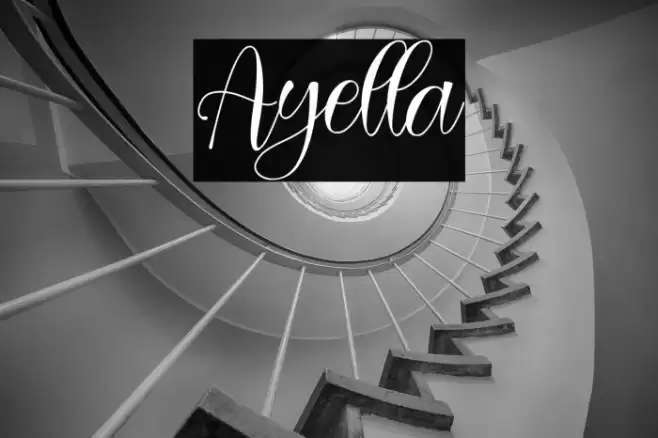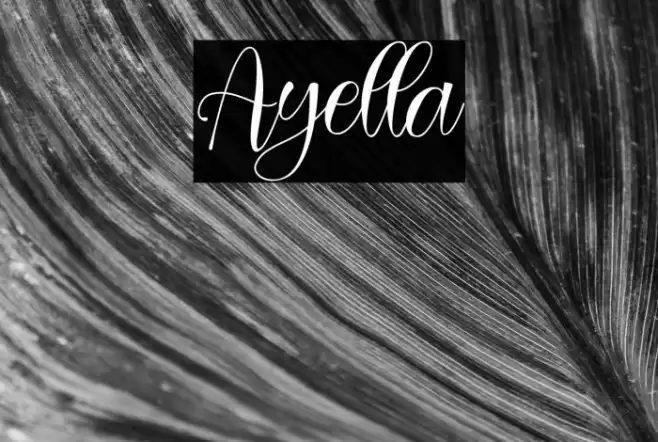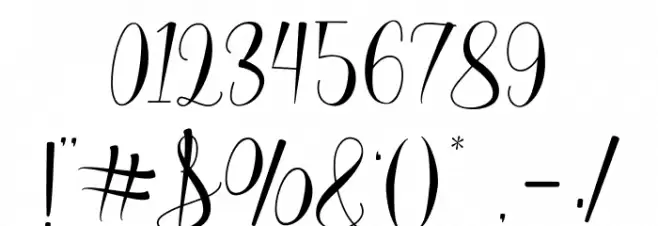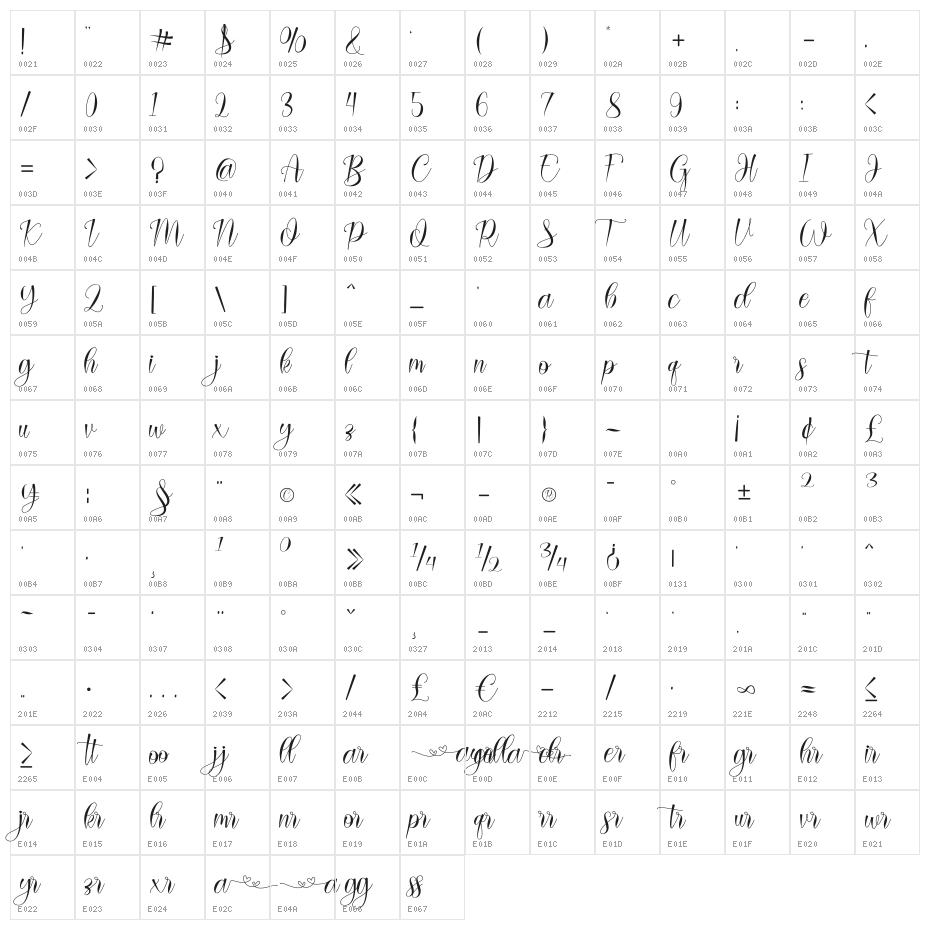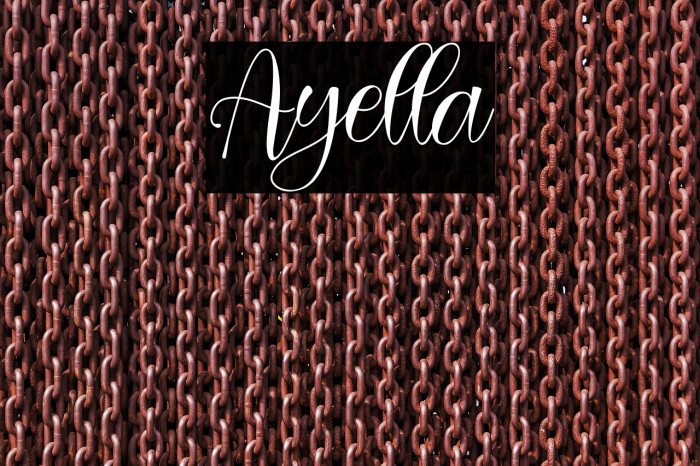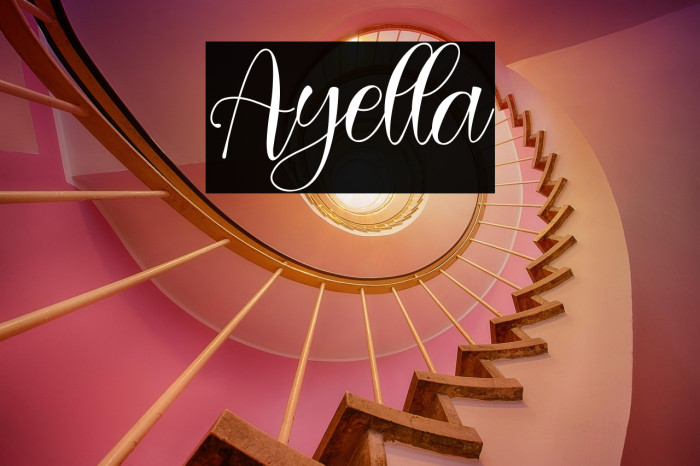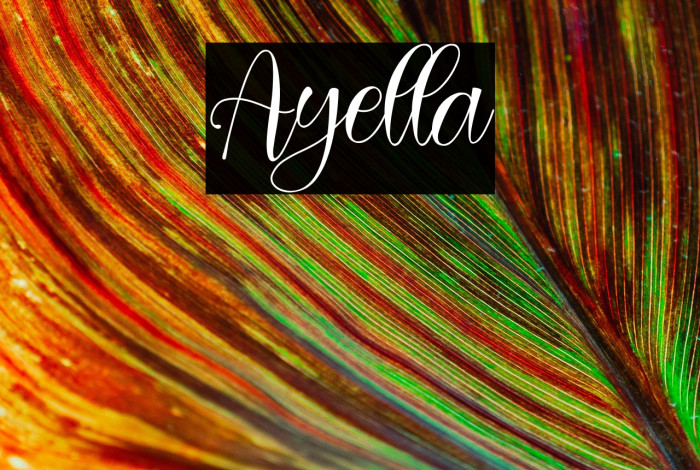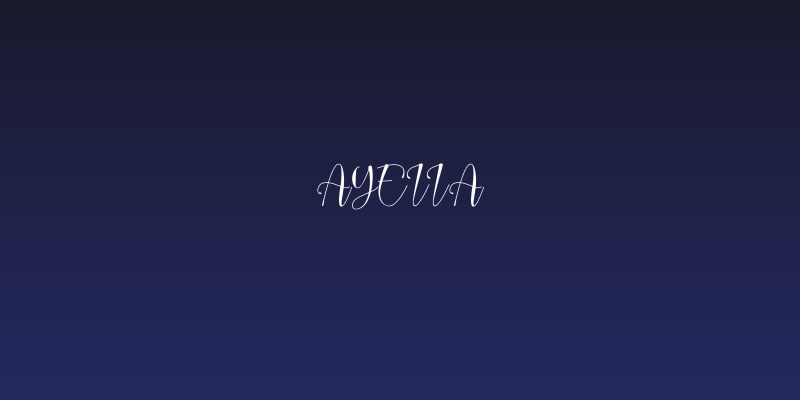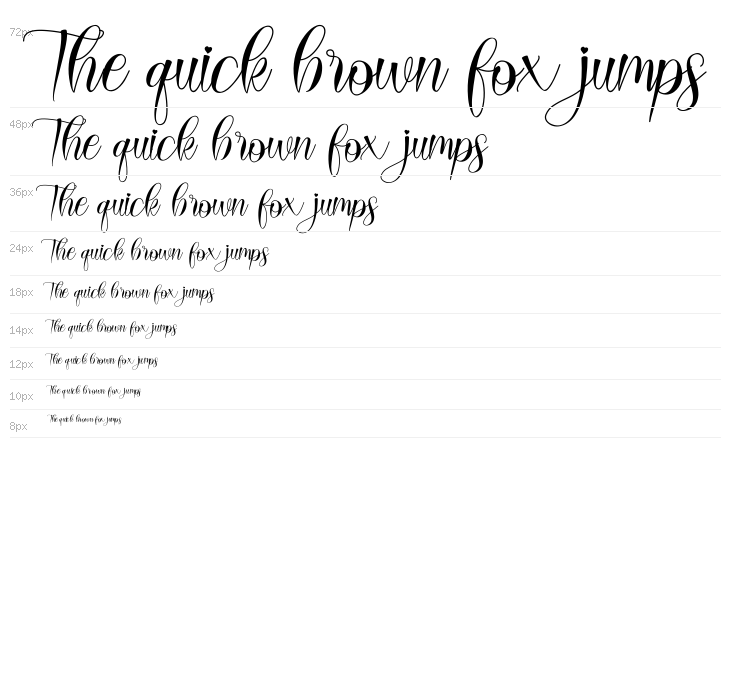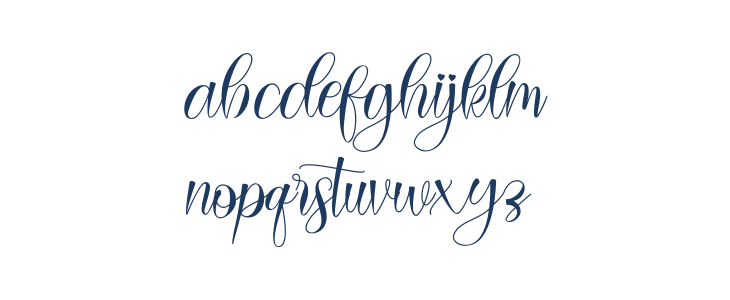
Ayella Font
Ayella Description
This font features an elegant and flowing script style, characterized by its smooth, cursive strokes and sophisticated loops. The uppercase letters are tall and graceful, with a slight slant that adds to the overall fluidity. The lowercase letters maintain a consistent style, with some letters featuring distinctive swashes that enhance their decorative appeal. Numbers are clear and maintain the script style, ensuring readability while retaining elegance. Special characters are thoughtfully designed to match the overall aesthetic, making this font versatile for various design needs.
An elegant, flowing script font with sophisticated loops and swashes from Uncategorized fonts.
- Proposed Projects: Ideal for wedding invitations, elegant branding, greeting cards, and upscale packaging.
- Overall Style: Elegant
- Use Case: Logos, Invitations, Branding